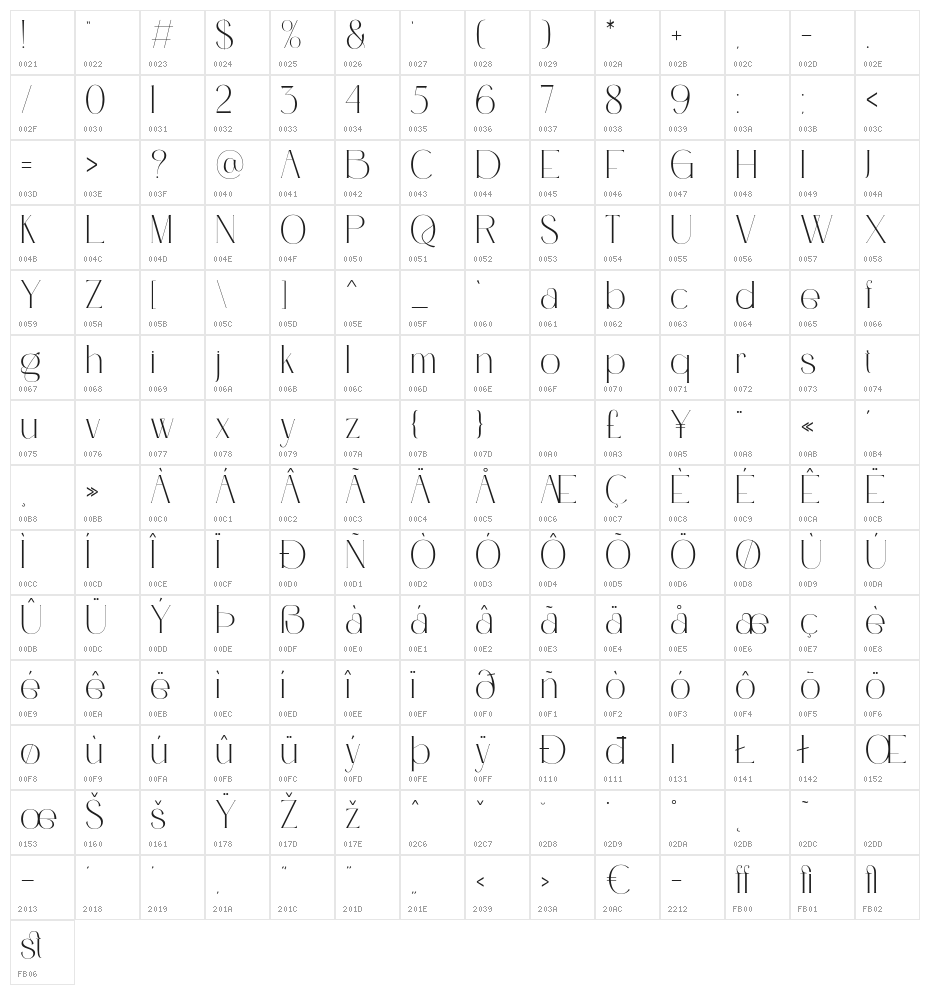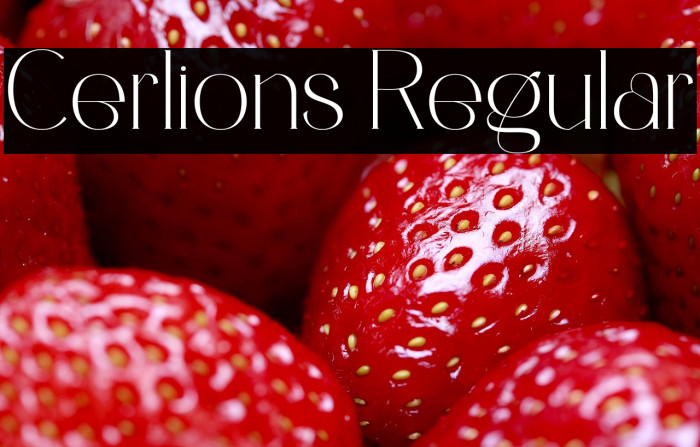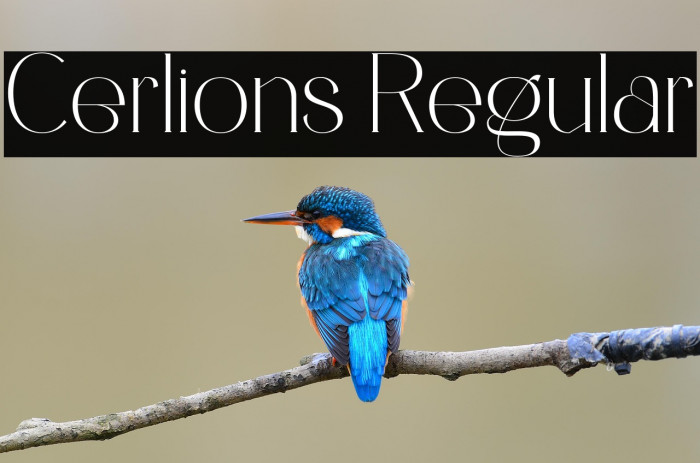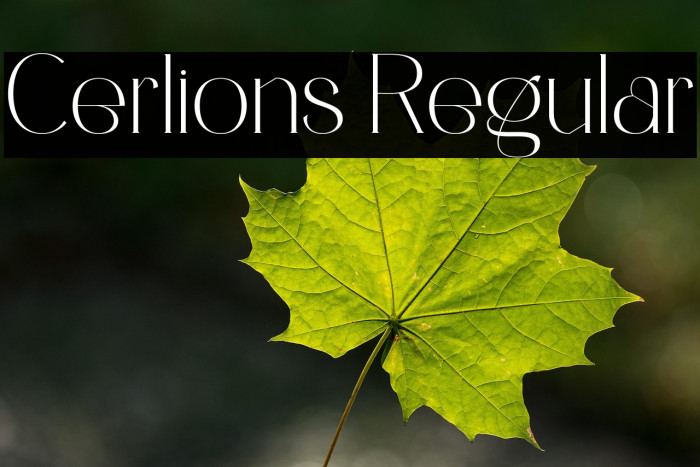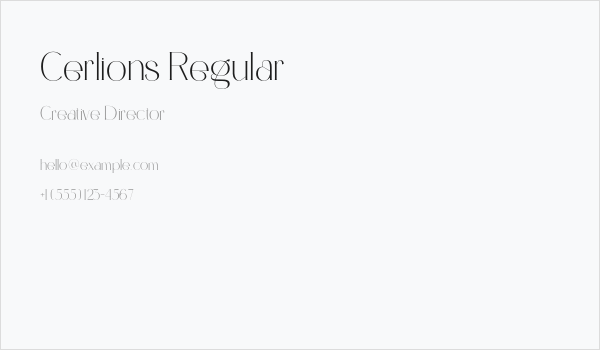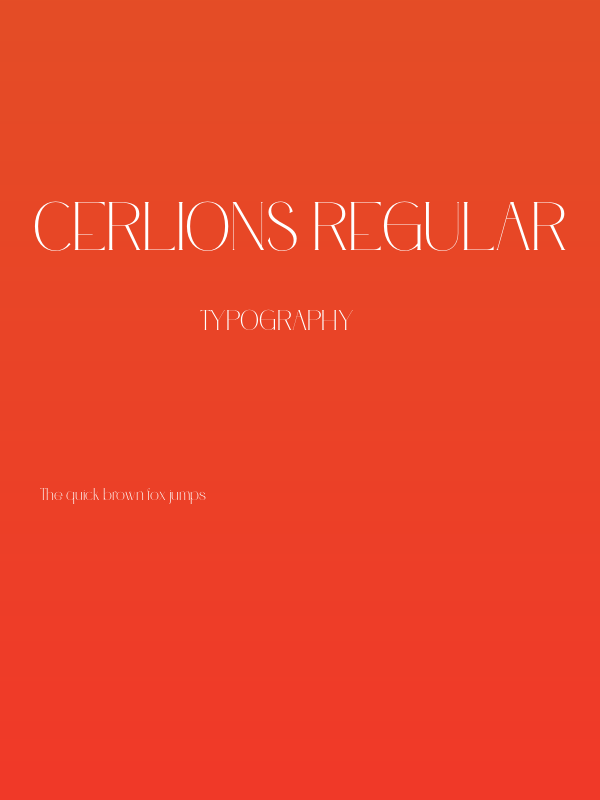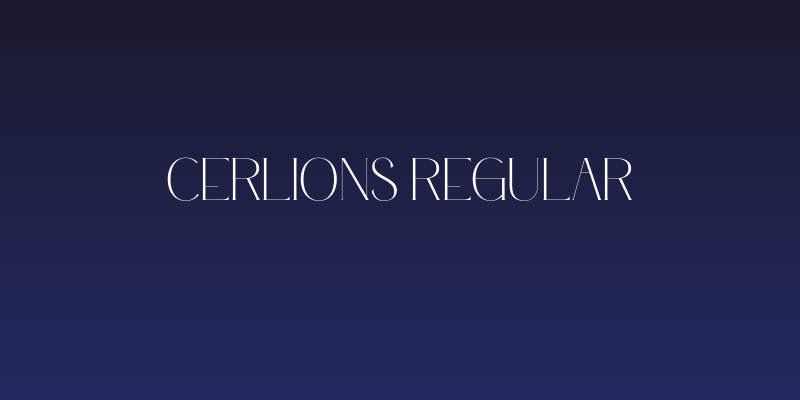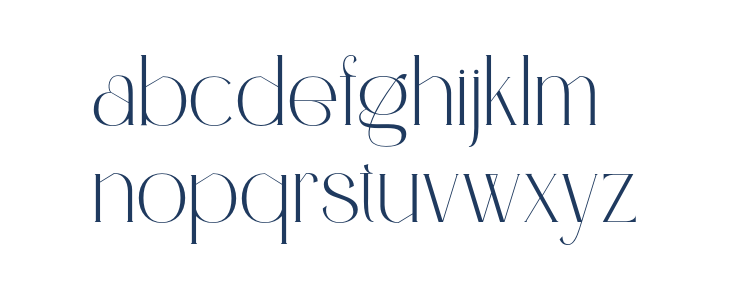
Cerlions Regular Font
Cerlions Regular Description
This font features a modern and elegant design with a high contrast between thick and thin strokes, giving it a sophisticated and stylish appearance. The uppercase letters are tall and slender, while the lowercase letters maintain a consistent flow with rounded edges and smooth curves. The numerals are distinct and easy to read, complementing the overall aesthetic. Special characters are crafted with attention to detail, adding to the font's versatility. Its unique style makes it suitable for various creative projects.
| Use Case | Headlines, Logos, Editorial Design |
| Proposed Projects | Ideal for fashion magazines, luxury branding, editorial design, and high-end product packaging. |